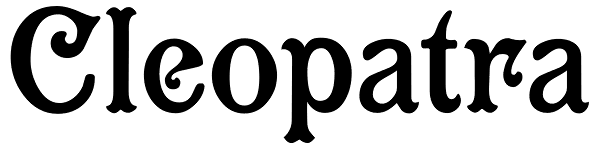
Cleopatra
Here's a great old face from the H. W. Caslon foundry in London; a real workhorse. The lowercase is eminently readable, so you can set entire paragraphs to good effect. We don't recommend it for setting all caps, but we did take time to kern it...